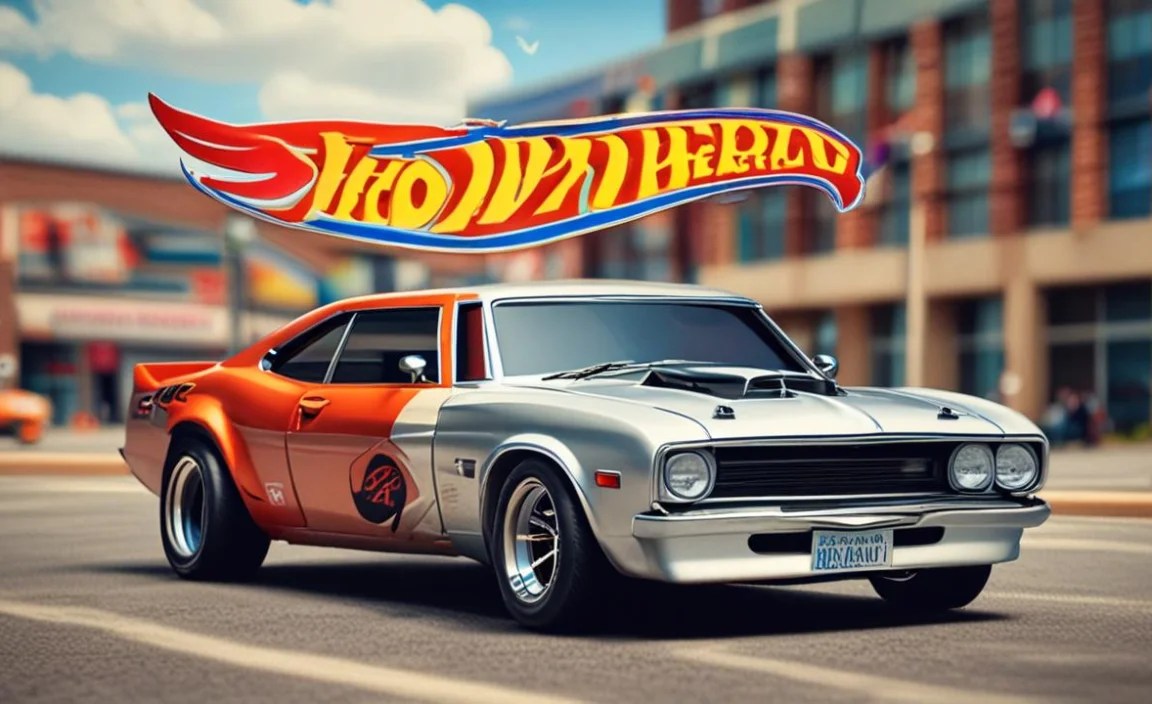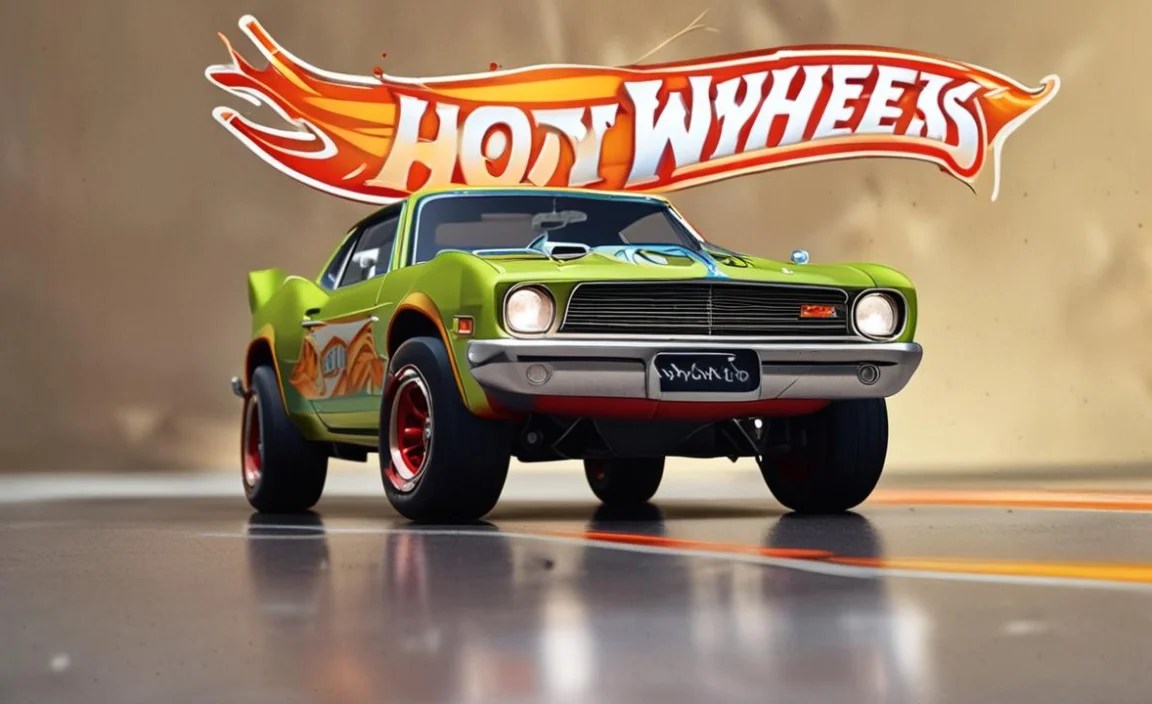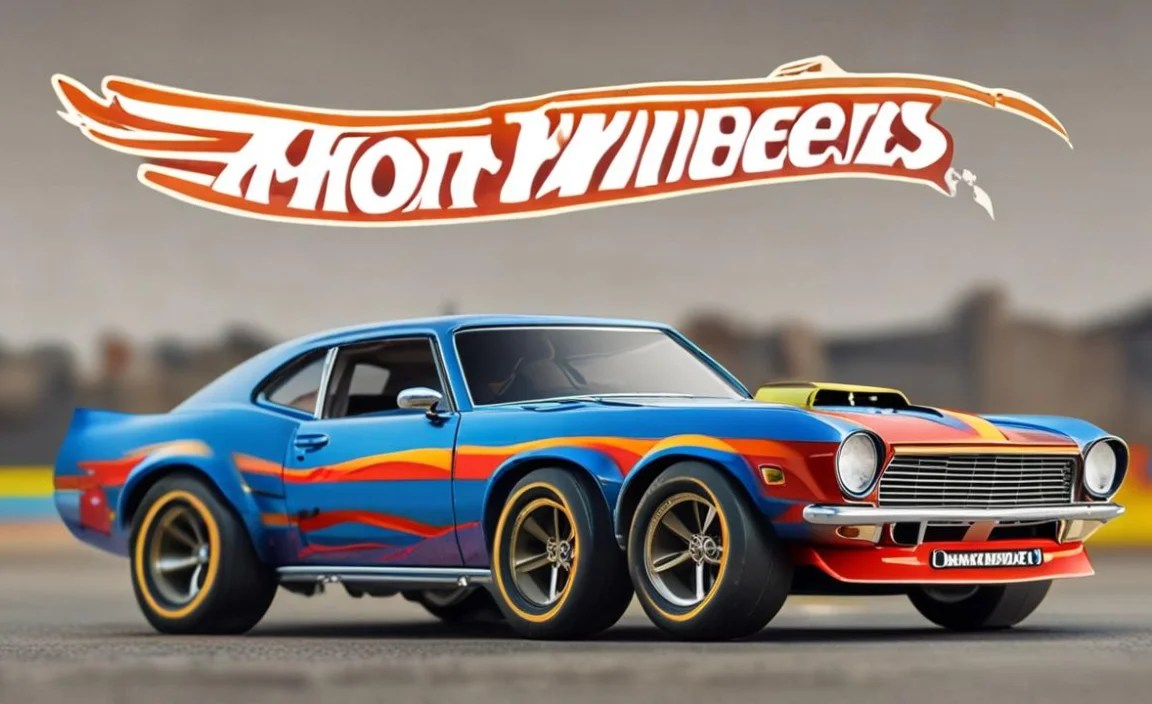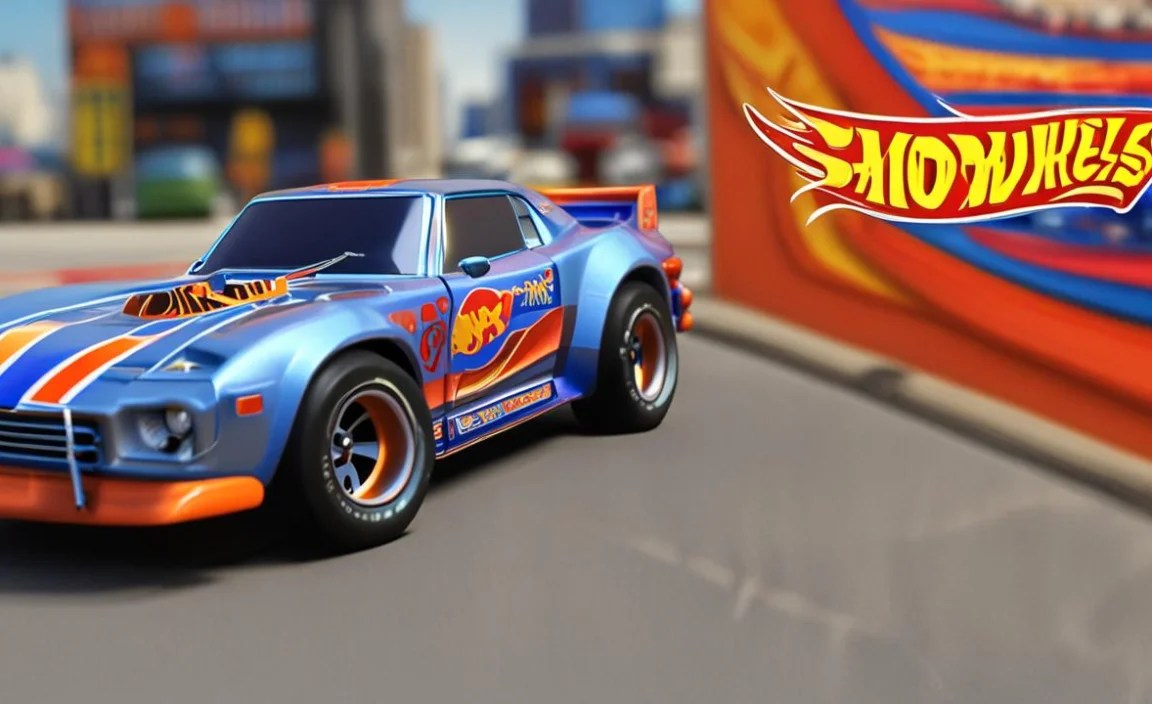
The Hot Wheels Font used extensively in branding the Hot Wheels toy brand, captures the fast-paced, adventurous spirit associated with the popular line of toy automobiles.
The font closely resembles “Heavy Heap” by Typodermic Fonts, which is used in the iconic Hot Wheels logo. This typeface reflects the dynamic and energetic essence of the brand, making it ideal for logo design and promotional materials.
Hot Wheels Font Information
| Name | Hot Wheels Font |
| Style | Display |
| Designer | Typodermic Fonts |
| Type | Bold Display |
Hot Wheels Font Family Includes
- Heavy Heap Regular
- Heavy Heap Bold
- Heavy Heap Italic
- Heavy Heap Condensed
- Heavy Heap Expanded
Where Hot Wheels Font Is In Use
The Hot Wheels Font is crucial for establishing the brand’s high-energy visual identity. Its bold and dynamic design is used across various applications, including:
- Logo Design
- Packaging
- Marketing Materials
- Advertising Campaigns
- Merchandise
- Collector’s Editions
- Promotional Items
- Product Branding
Use the Hot Wheels font for logos, packaging, and promotional materials to convey a dynamic, adventurous theme.
Styles include Regular, Bold, Italic, Condensed, and Expanded.